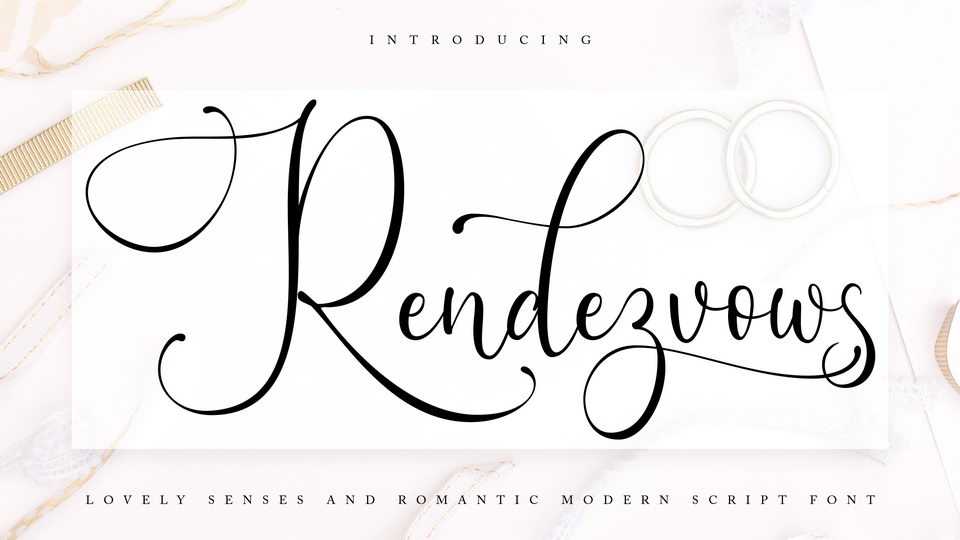
Download Rendezvouws font, a beautiful script that combines elegant swashes and a contemporary approach to design. Use Rendezvouws font to make any creative idea stand out.
Designer: Vunira Design